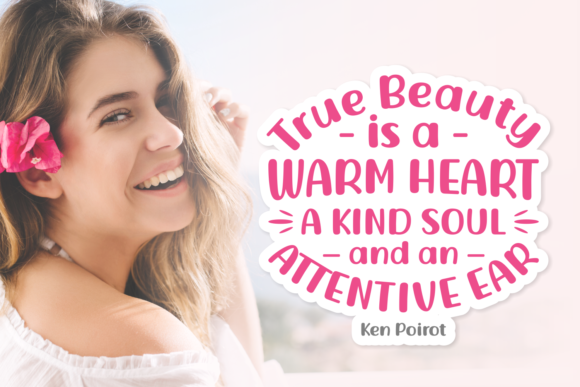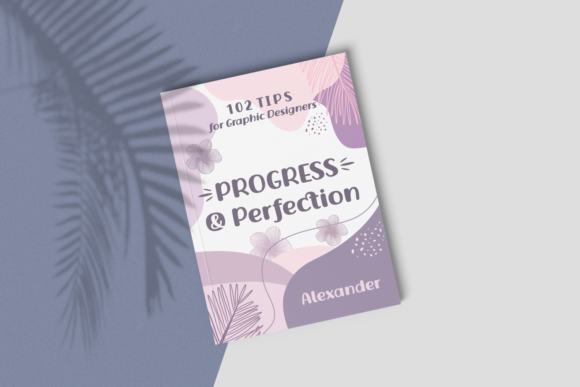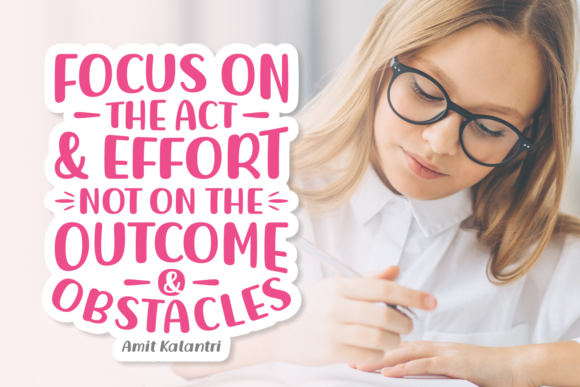
The Power of Connection in Design
Have you ever stared at a blank canvas, trying to conjure up the perfect idea, but feeling like your creativity is stuck in neutral? We’ve all been there. Sometimes, all it takes is the right tool to get the creative juices flowing. For designers, finding the perfect font can be just the spark they need to bring their vision to life.
Enter the Attentive and Understanding Font – a quirky, yet versatile display font designed to capture attention and convey understanding. This unique font is perfect for designers looking to add a touch of personality to their work, whether it’s a bold logo, a striking headline, or a creative graphic. With its expressive qualities, the Attentive and Understanding Font is a valuable addition to any designer’s toolkit.
Key Features of Attentive and Understanding Font
- Unique Character Set: The font features a unique set of characters, including ligatures, swashes, and alternate glyphs, allowing for a high level of expressiveness and creativity.
- Contextual Alternates: Attentive and Understanding Font includes contextual alternates that adjust the shape of letters based on their position within a word, providing a more natural and readable appearance.
- Large Character Set: The font includes a comprehensive set of characters, including Latin, Greek, and Cyrillic scripts, making it suitable for a wide range of languages and applications.
- Optimized for Digital Use: The font is specifically designed for digital use, with careful attention to hinting and rendering to ensure smooth and clear display on screens.
Designer Review: Attentive and Understanding Font
Overall, I have mixed feelings about the “Attentive and Understanding Font”. While it has some great qualities, it also has some limitations that prevent me from fully endorsing it. Let’s break it down.
- High readability: The font is extremely legible, making it perfect for body text and content-heavy websites.
- Emotional connection: The font’s rounded edges and friendly feel create a sense of approachability and understanding, which is great for branding and marketing materials.
- Good for long-form content: The font’s clear structure and easy-to-follow lines make it ideal for articles, blog posts, and other long-form content.
- Lack of bold weight: The font’s bold weight feels a bit too light, which can make it difficult to use in headings and titles.
- Not ideal for headlines: The font’s friendly feel can make it difficult to use in headlines and titles, where a bolder, more dramatic font is often preferred.
- Not suitable for high-contrast designs: The font’s rounded edges and soft lines can make it difficult to use in high-contrast designs, where a bolder, more geometric font is often preferred.
In conclusion, the “Attentive and Understanding Font” is a solid choice for body text and content-heavy websites, but it may not be the best fit for headlines, titles, or high-contrast designs. While it has some great qualities, its limitations prevent me from fully endorsing it.
The Attentive and Understanding Font is ideal for:
- Designing educational materials (e.g., textbooks, workbooks, and presentations).